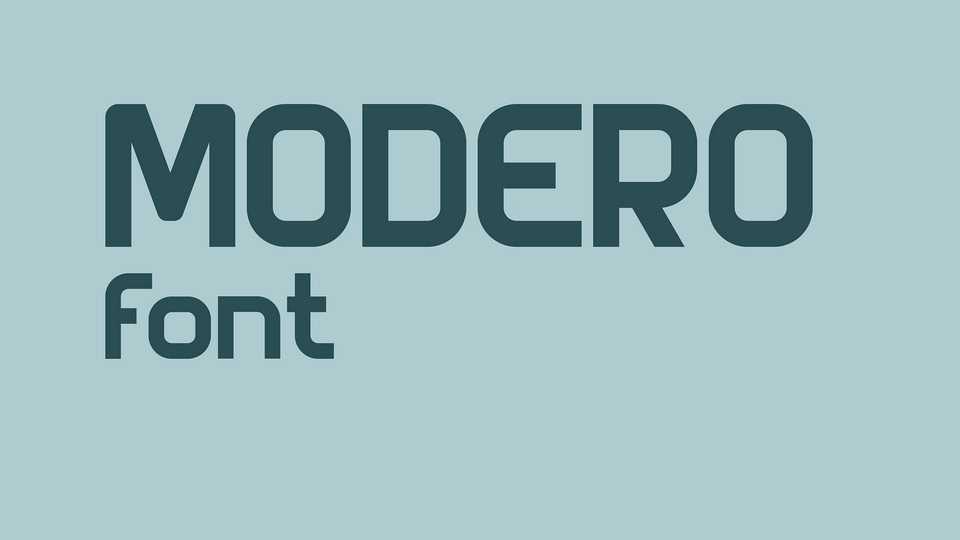
Download Modero font, an industrial sans serif typeface designed on a geometric grid. With its technical look, Modero font is perfect for posters, headlines, movies and games.
Designer: Rosyid Raihan